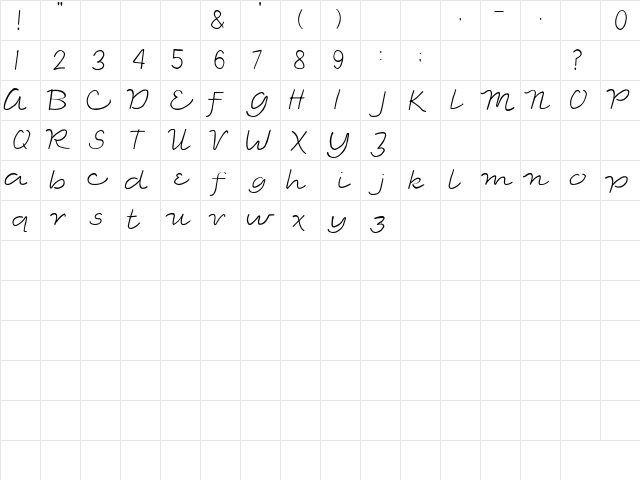
Complete 2Peas Oscar Regular glyph index. Displaying only characters natively supported by 2Peas Oscar Regular font.
2Peas Oscar is a composed and adaptable typeface that performs quietly and consistently across a wide range of design contexts.